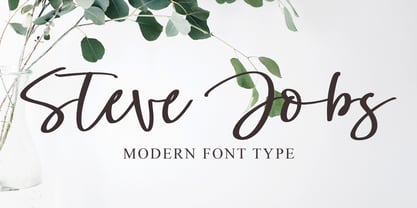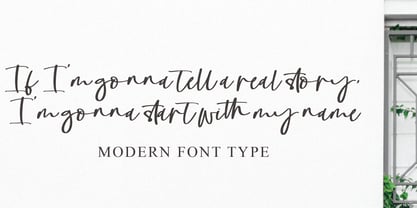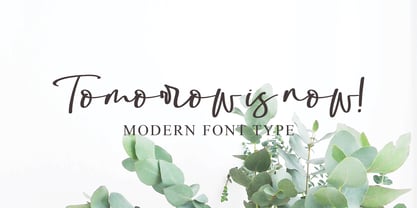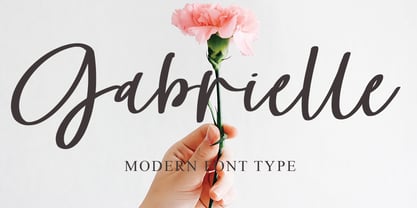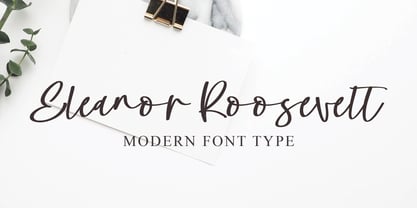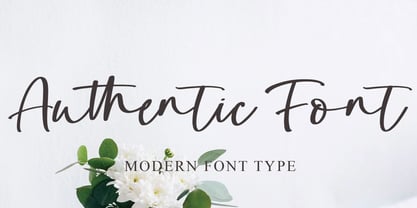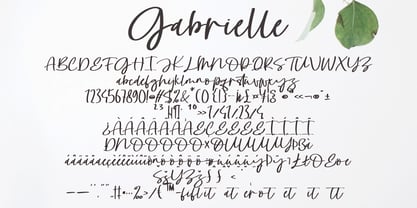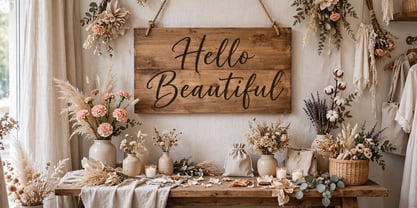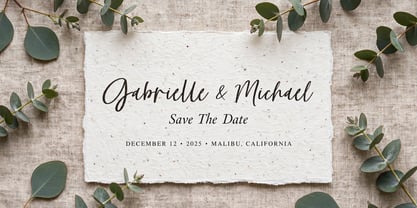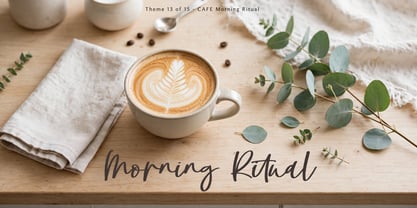
Gabrielle
by Naatypo
The Gabrielle Font Family was designed by Kurnia Elis Setyorini and published by Naatypo. Gabrielle contains 1 styles.
Immerse yourself in the sumptuous sophistication of Gabrielle, a signature font steeped in elegance and luxury. Conceived from a stylish interplay of fashion and flair, Gabrielle reflects a refined aesthetic that distinguishes itself in a sea of sameness. Its graceful demeanor makes it the perfect choice for corporate identities, brand names, or trademarks. Additionally, it effortlessly elevates the design of wedding invitations and story titles, among others, infusing them with its distinctive character. Allow Gabrielle to transform mundane typefaces into extraordinary creations.
Gabrielle